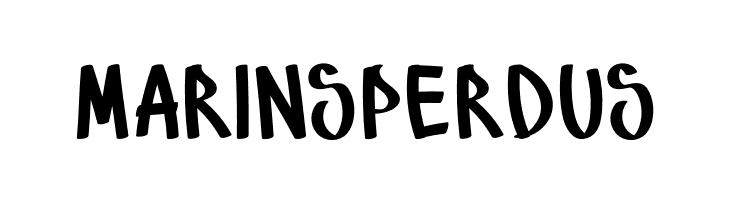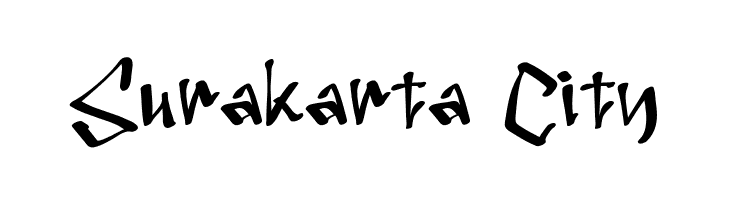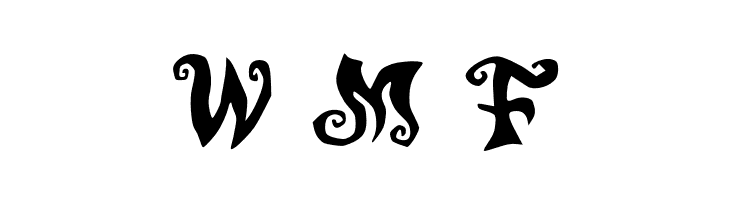
( Fonts by Reffan Suseno )
An artistic and edgy font with a blend of modern and traditional calligraphy elements.
( Fonts by Rochart Studio )
A bold, graffiti-inspired font with sharp, angular edges and dynamic style.
( Fonts by Asep Rendi )
A bold, playful font with uneven strokes and a cartoon-like appearance.
( Fonts by Dharmas Studio )
A bold, playful font with thick, rounded characters and high contrast, ideal for creative projects.
( Fonts by JoTa_G )
A bold, graffiti-inspired font with sharp angles and high contrast.
( Fonts by Dhabee Studio )
A bold, playful font with a bubble-like, rounded design.
( Fonts by Ida Bagus Surya Prabawa Putra )
A bold, playful, and hand-drawn font with a graffiti-like aesthetic.
( Fonts by Tokopress )
A bold, playful font with exaggerated strokes and a cartoonish flair.
( Fonts by idebareng )
A bold, hand-drawn font with an energetic and playful style.
( Fonts by CrazeCo.com.au )
A bold, graffiti-inspired font with dynamic and expressive characters.